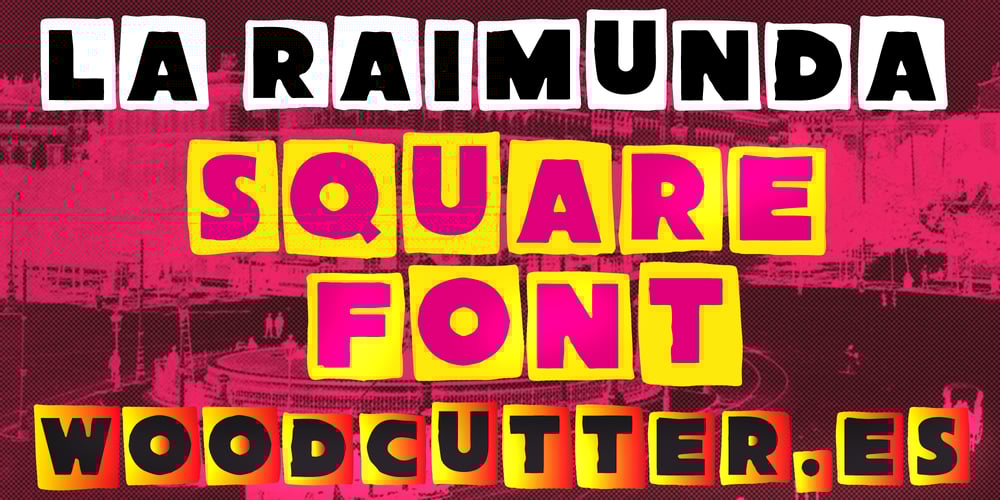
La Raimunda
La Raimunda font
La Raimunda Font Family was designed by Jordi Manero and published by Woodcutter. La Raimunda contains 1 styles and family package options. “La Raimunda” is a solid yet unstable typeface, with each letter appearing to be framed in squares, giving it a unique and distinctive touch. Its robust appearance is balanced by a sense of movement and disorder, creating a dynamic visual effect. Perfect for creative designs that aim to stand out, such as posters, logos, and eye-catching titles. “La Raimunda” adds character and originality, harmoniously blending solidity and chaos.